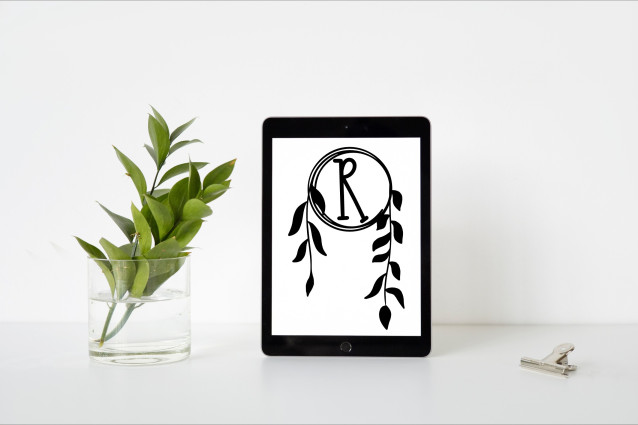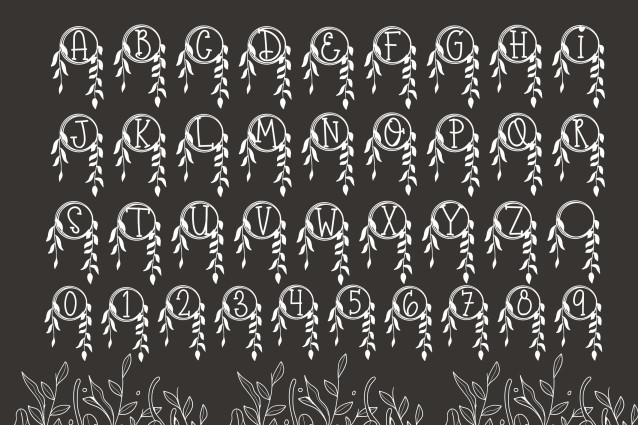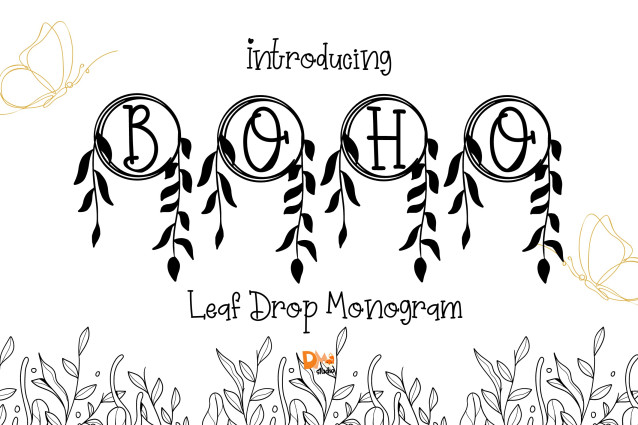
Leaf Drop Monogram Font
Leaf Drop Monogram Font is a refined serif monogram font adorned with delicate falling leaf motifs. Each uppercase letter is designed with softly cascading foliage, creating a graceful and nature-inspired aesthetic perfect for weddings, seasonal branding, and personalized design projects that embrace organic beauty.